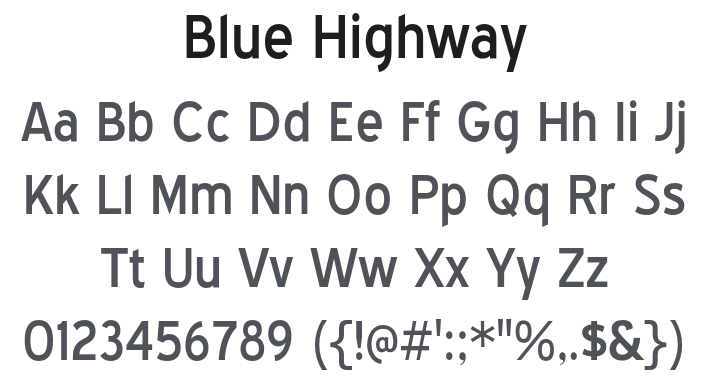
Blue Highway Font Family
About Blue Highway
Blue Highway is a clean, highly legible sans-serif typeface inspired by Highway Gothic — the FHWA Standard Alphabets used on road signs across the USA, Canada, and many other countries since the mid-20th century. Its open, sturdy letterforms prioritize readability at any size and distance. Available in Regular, Bold, Condensed, D, and Linocut variants. Perfect for signage, wayfinding systems, maps, editorial design, and any project needing trustworthy, road-tested clarity.